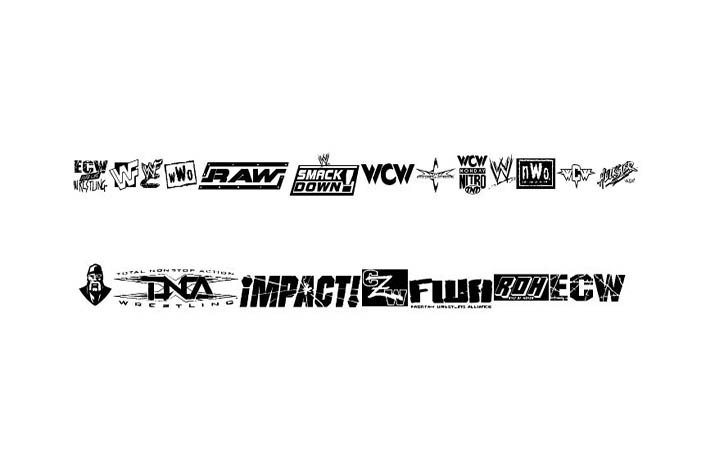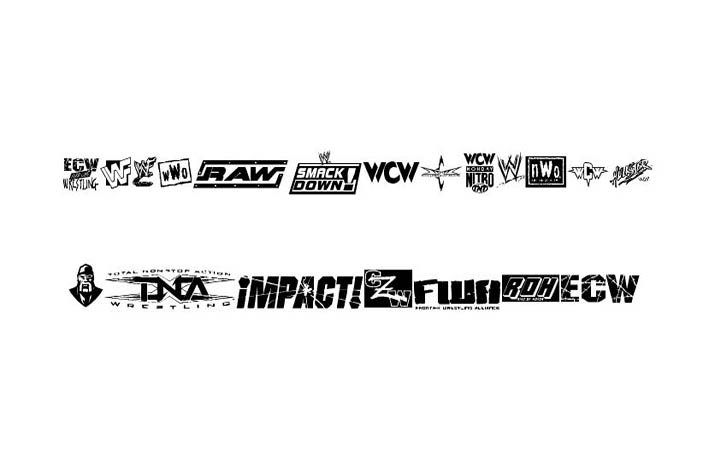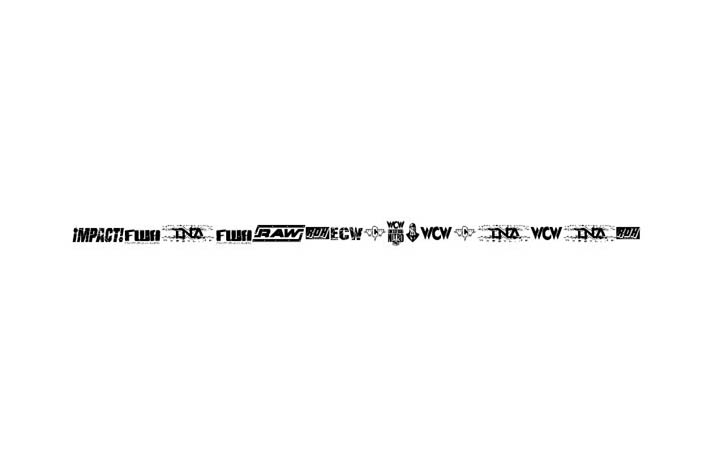
Pro Wrestling Logos Font is a dingbat display typeface that font, not only covers but also billboards and posters of boxing, and wrestling. Designed by Supercar Guy and released by Steve Ferrera.
It has featured different shapes bold, and impactful which took inspiration from vintage style. Now it can easily be useable for printing and display tasks.
With this wrestling font, you can create a beautiful flyer, a logo for selling sports equipment or video games, and modern futuristic movies. Also use it for boxing, judo, bodybuilding, logos, posters, flyers, and billboards.
• Try this font for your next professional design project to create captivating cartoons, fascinating books, book covers, book layouts, headlines, logos, video titling, space exploration, sci-fi movies, wedding cards, invites, social media posters, business cards, and more.
• Sports brands such as boxing, judo, and bodybuilding, for their advertising, are not limited to just the logo, posters, flyers, and billboards are included.
What is Pro Wrestling Logos Font?
Pro Wrestling Logos Font is a dingbat display typeface that font, not only covers but also billboards and posters of boxing, and wrestling. Designed by Supercar Guy and released by Steve Ferrera.